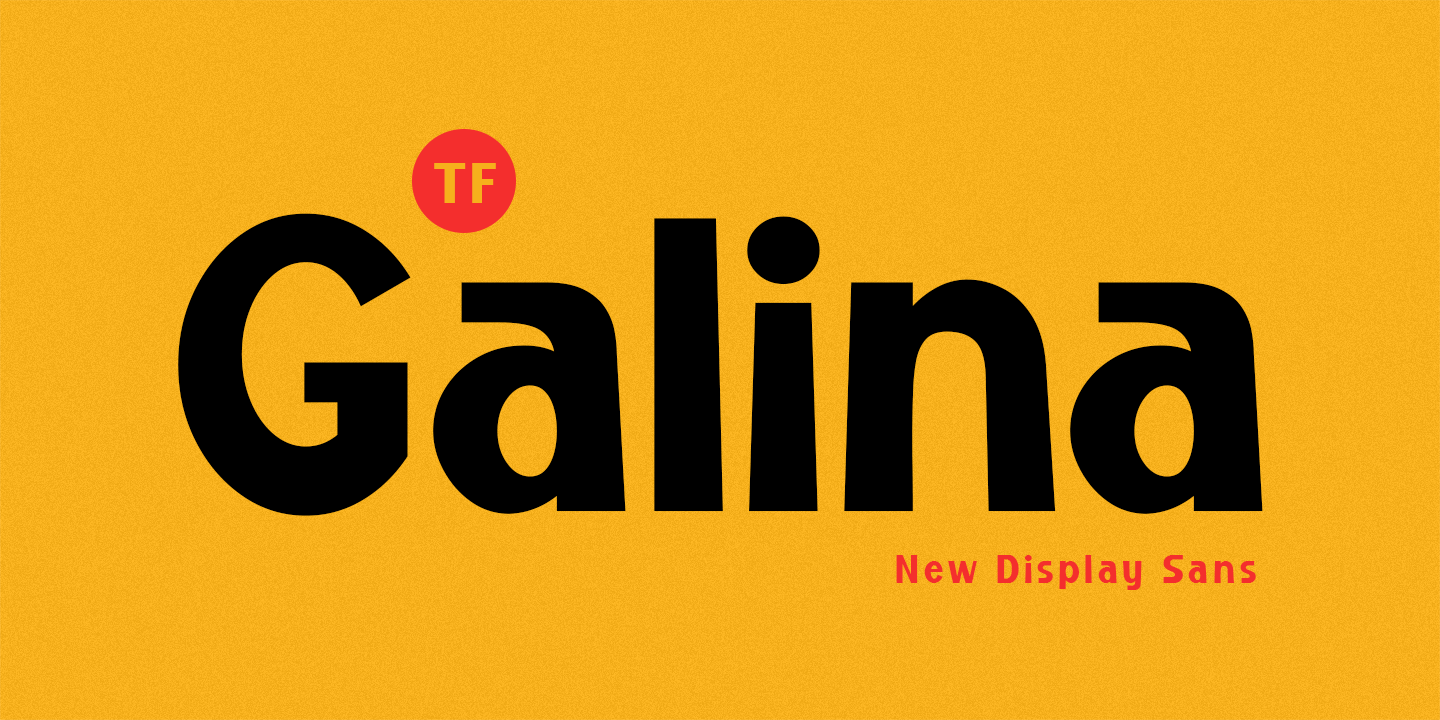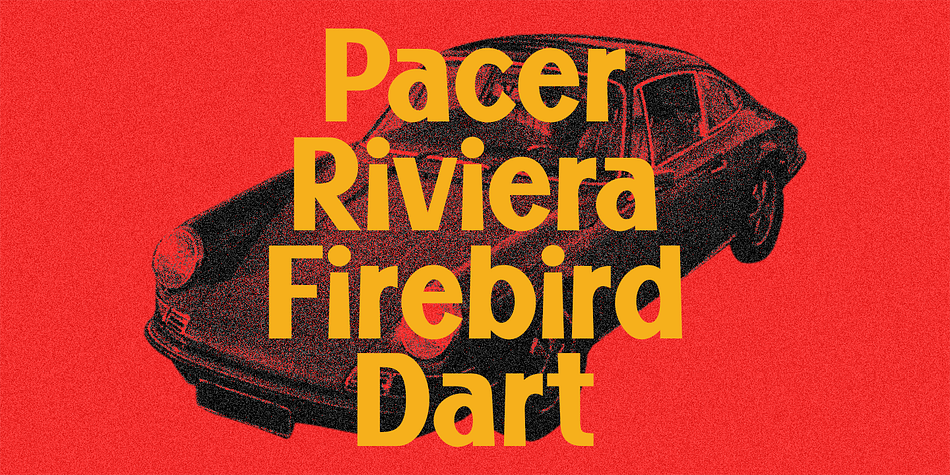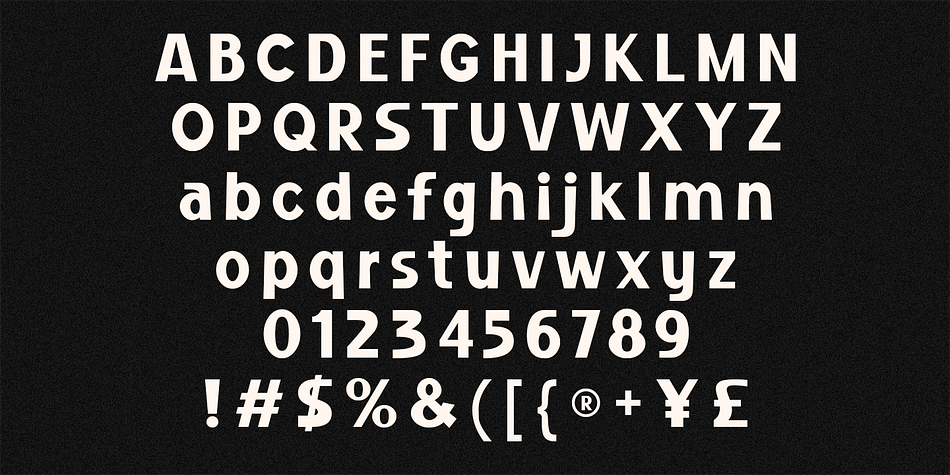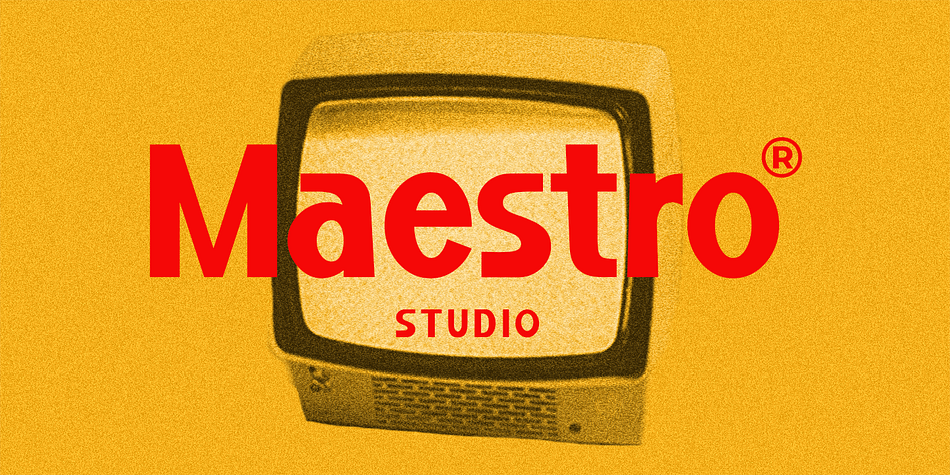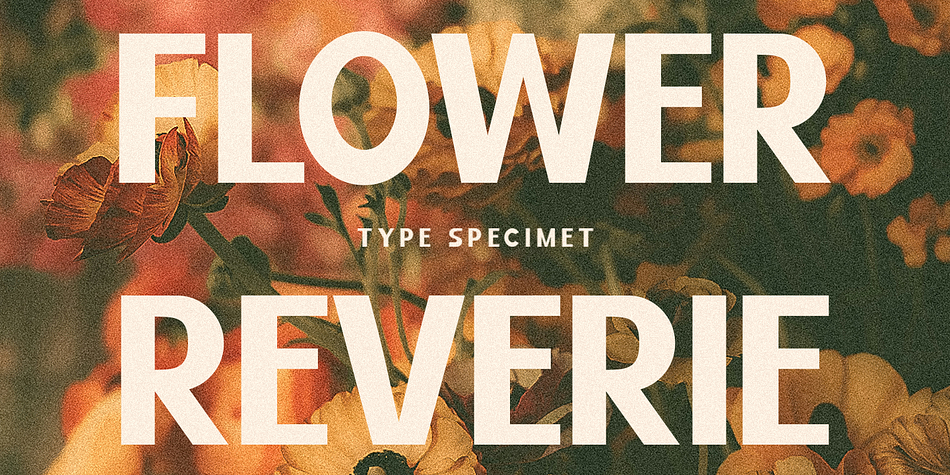
TF Galina
TF Galina is a display sans font family published by Teenage Foundry.
TF Galina – Display Sans Font By Teenage Foundry
TF Galina is a captivating display sans font that effortlessly blends modernity with a touch of retro charm. With its clean and sleek letterforms, this font exudes a contemporary elegance, while subtle vintage influences add character and warmth.
Features: Uppercase, Lowercase, Numeral, Punctuation & Multilingual.